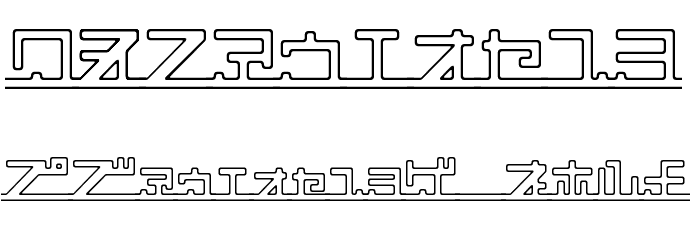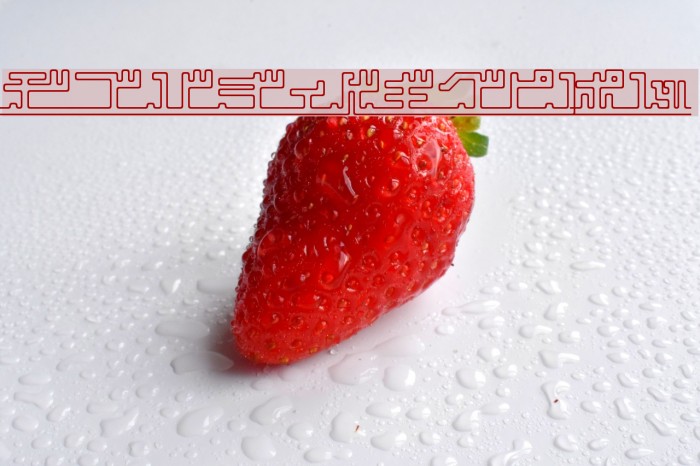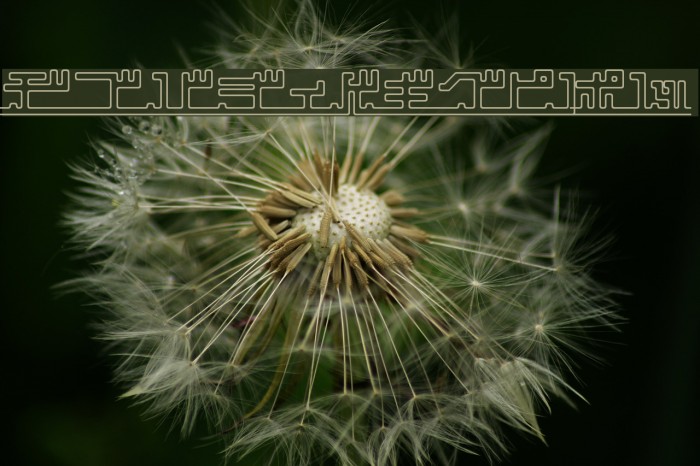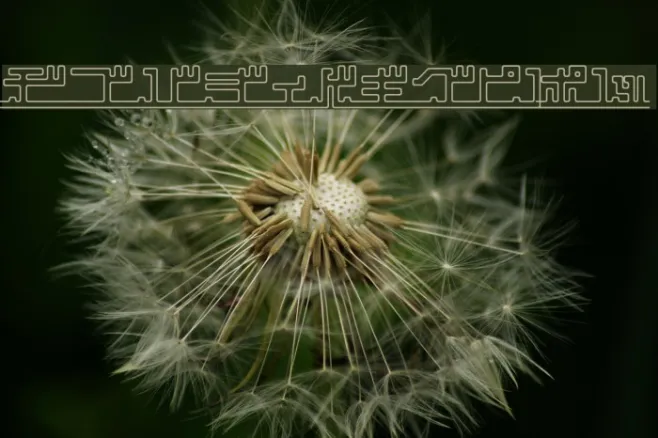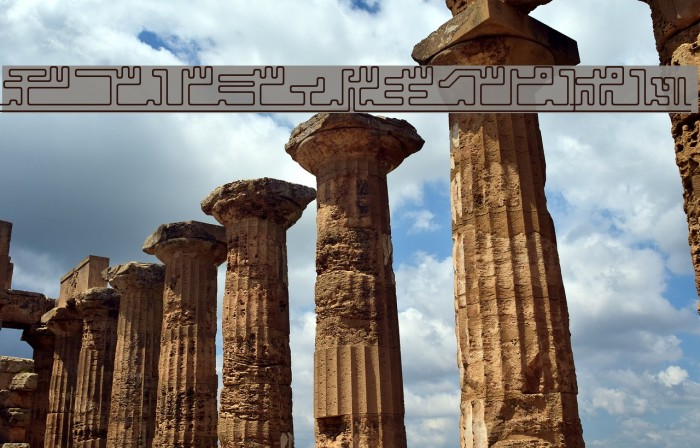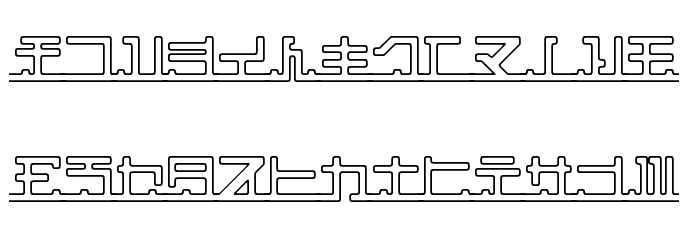
katakana,pipe Font
This font features a unique, futuristic design with a geometric structure. Each character is crafted with a continuous line that forms intricate shapes, creating a maze-like appearance. The font has a distinct, modern aesthetic that stands out due to its unconventional form. The characters are evenly spaced, maintaining a consistent flow across the text. This style is particularly eye-catching and can be used to convey a sense of innovation and creativity. The font's design is both artistic and functional, making it suitable for various creative applications.
A futuristic, geometric font with a continuous line design.
• Proposed Projects: Ideal for sci-fi themed projects, modern art displays, innovative branding, and creative digital media.
• Category: Decorative/Display
• Overall Style: Modern
• Use Case: Logos, Headlines, Posters